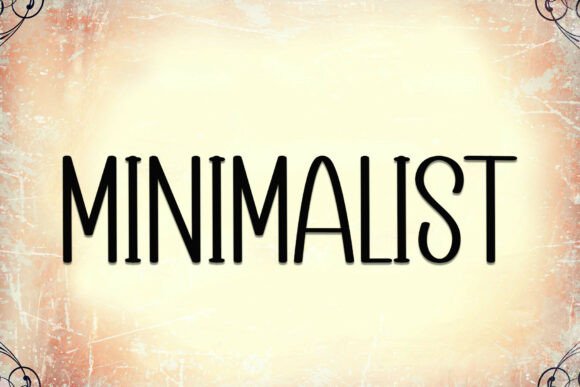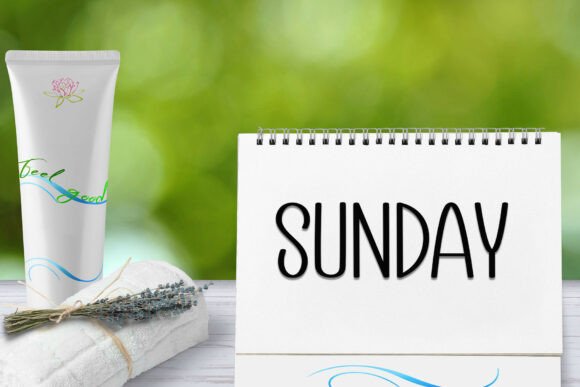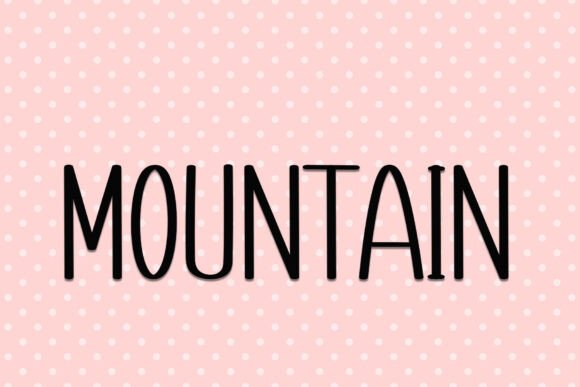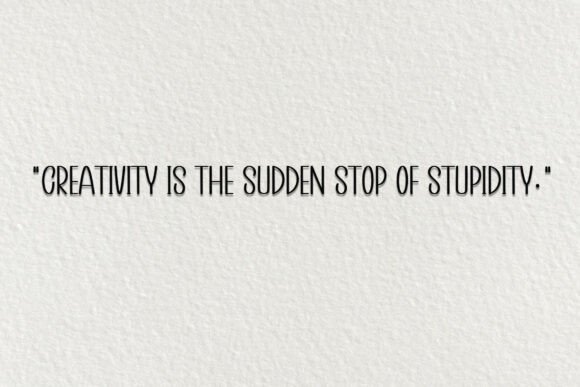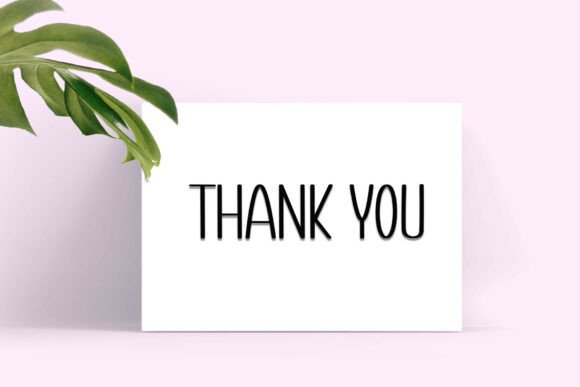
Introducing Coaster Font: Elevate Your Designs with Timeless Elegance
In the world of typography, fonts play a crucial role in conveying the tone and personality of a design. For designers and crafters seeking to add a touch of sophistication and class to their projects, Coaster Font is an excellent choice. This trendy handwritten font boasts a contemporary atmosphere and impeccable form, drawing inspiration from timeless classic calligraphy.
The Essence of Coaster Font
Coaster Font is a beautiful, elegant, and versatile typeface that can elevate any design project. Its unique blend of traditional calligraphy and modern flair makes it perfect for a wide range of applications, from wedding invitations and branding materials to packaging and digital media. With Coaster Font, you can add a touch of luxury and refinement to your designs, setting them apart from the ordinary.
Key Features of Coaster Font
- Trendy and Contemporary: Coaster Font features a fresh and modern design that will give your projects a stylish and up-to-date look.
- Handwritten Elegance: The font’s handwritten style adds a personal touch to your designs, making them more approachable and engaging.
- Timeless Classic Calligraphy Inspiration: Coaster Font draws inspiration from traditional calligraphy, ensuring that your designs exude a sense of sophistication and elegance.
- Impeccable Form: The font’s precise and clean lines make it easy to read and visually appealing.
- Versatile: Coaster Font can be used for a wide range of design projects, from print materials to digital media.
Why Choose Coaster Font?
With so many fonts available, why choose Coaster Font for your design projects? Here are a few compelling reasons:
- Unique and Distinctive: Coaster Font’s unique style will help your designs stand out from the crowd and leave a lasting impression.
- Elegant and Sophisticated: The font’s elegant and sophisticated design makes it perfect for high-end branding, luxury packaging, and refined digital media.
- Easy to Read: Coaster Font’s clear and precise lines ensure that your text is easy to read, making it perfect for body text and headlines.
- Customizable: The font’s versatility allows you to experiment with different styles, sizes, and colors to create a unique look that suits your brand or project.
Using Coaster Font in Your Design Projects
Coaster Font is an excellent choice for a wide range of design projects, including:
- Wedding Invitations and Stationery: Add a touch of elegance and sophistication to your wedding invitations, save-the-date cards, and other stationery.
- Branding and Packaging: Use Coaster Font to create luxurious branding materials, such as business cards, letterheads, and product packaging.
- Digital Media: Elevate your digital media, including social media graphics, blog posts, and website headers, with Coaster Font’s modern and elegant style.
- Signage and Displays: Coaster Font is perfect for creating eye-catching signage and displays for events, exhibitions, and retail environments.
In conclusion, Coaster Font is an exceptional choice for designers and crafters seeking to add a touch of elegance and sophistication to their projects. With its trendy and contemporary design, impeccable form, and timeless classic calligraphy inspiration, Coaster Font is sure to elevate your designs and leave a lasting impression. Whether you’re working on a wedding invitation, branding materials, or digital media, Coaster Font is the perfect choice for adding a touch of luxury and refinement.